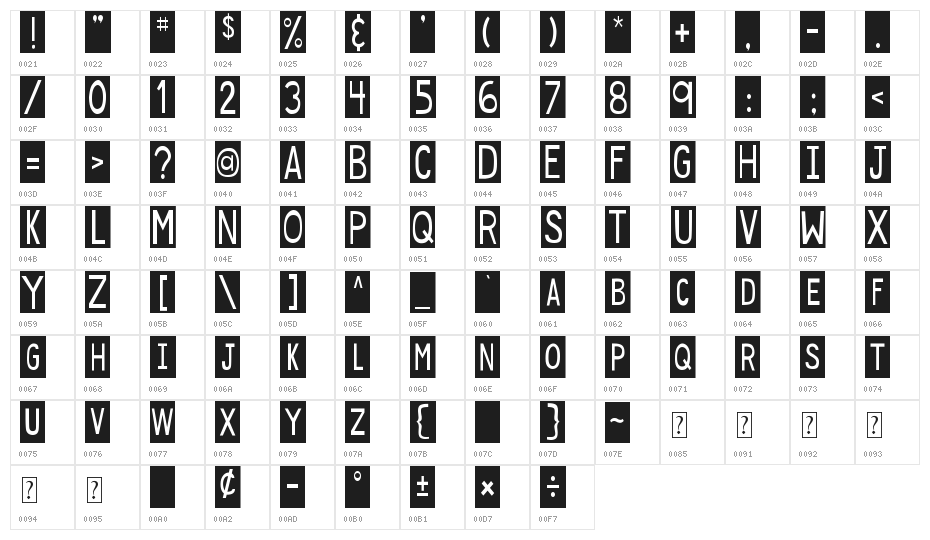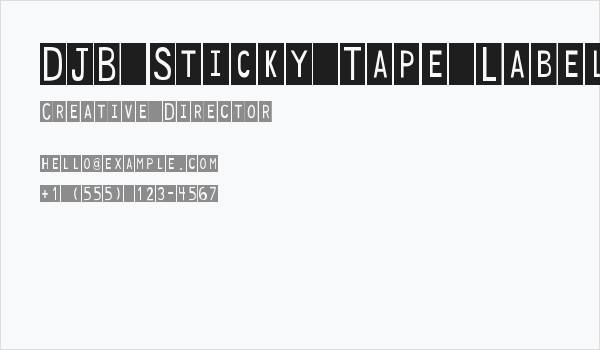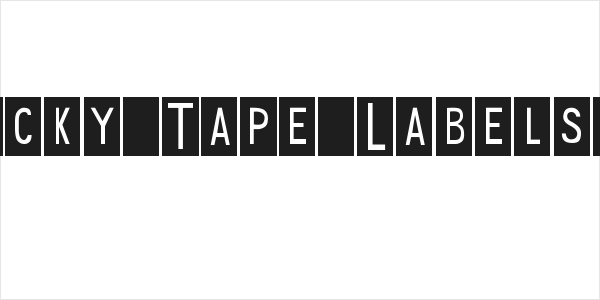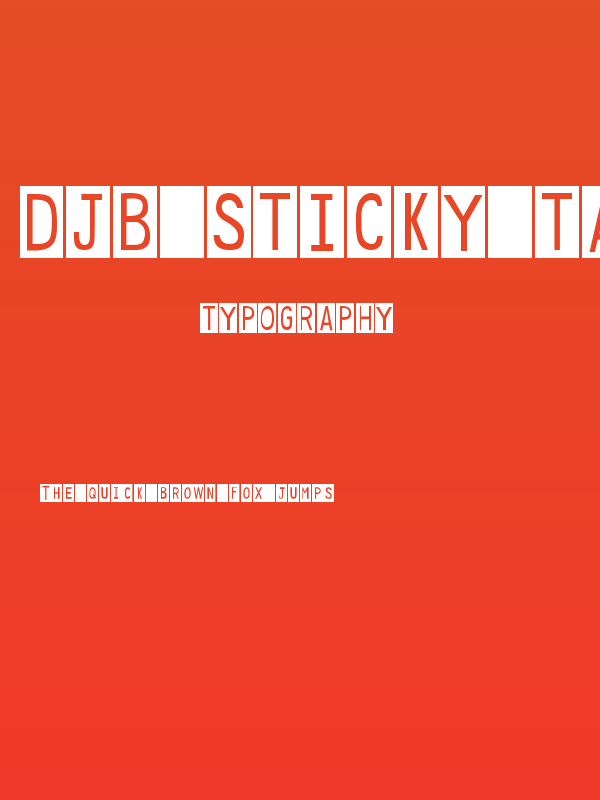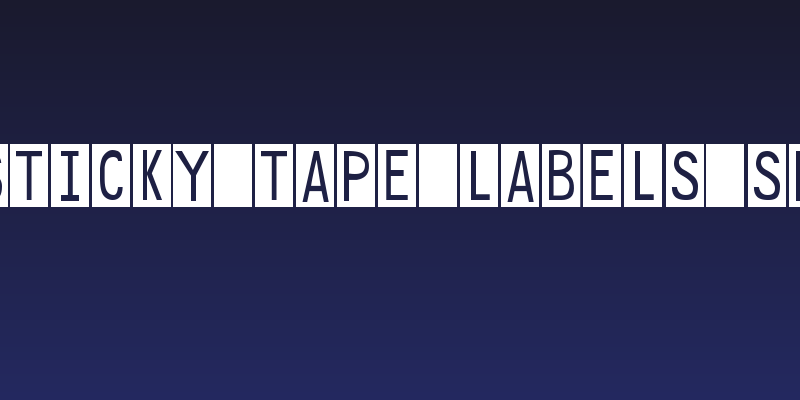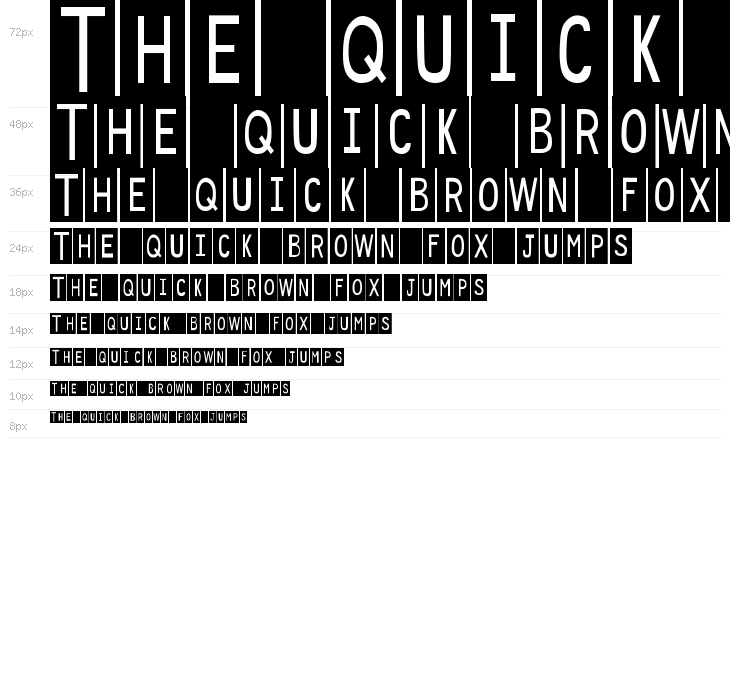
DJB Sticky Tape Labels Spaced Font
DJB Sticky Tape Labels Spaced Description
This font features a bold, geometric style with each character enclosed in a square, creating a distinct and structured appearance. The letters and numbers are uniformly spaced, enhancing readability and providing a clean, organized look. The uppercase and lowercase letters share a consistent design, with slight variations in size and shape to distinguish them. The numerals are straightforward and align well with the overall aesthetic. Special characters are included, maintaining the same bold and geometric style. This font is ideal for projects requiring a modern and structured design, offering a clear and impactful visual presence.
| Use Case | Headlines, Logos, Signage |
| Proposed Projects | Suitable for labels, signage, posters, and any design requiring a bold and organized look. |